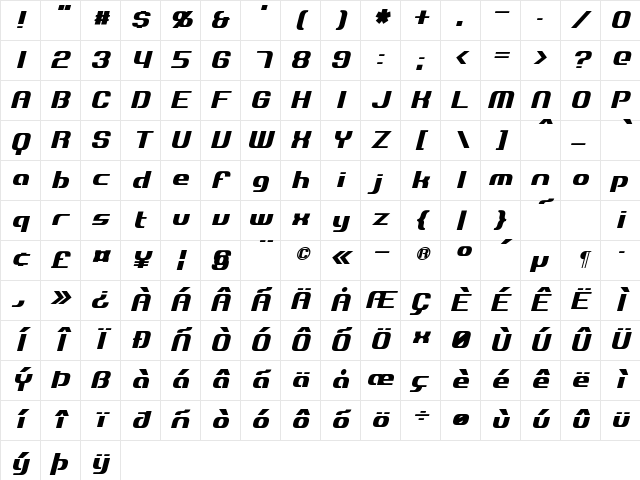
Explorien is a composed and adaptable typeface that performs quietly and consistently across a wide range of design contexts. The slanted form adds forward momentum and visual energy.
Pro Tip: Use Explorien for emphasis, pull quotes, and subheadings where its slanted energy can add rhythm to the layout.